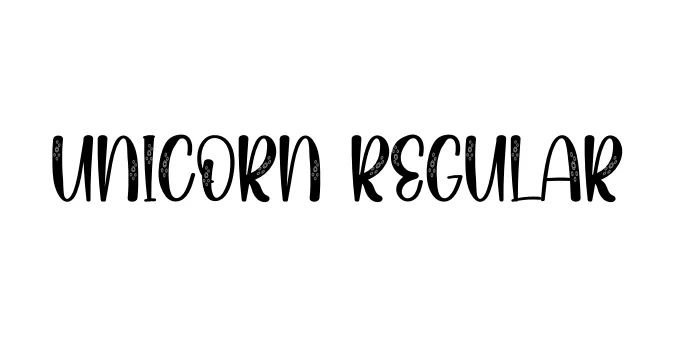
Unicorn Regular
Designed by Steve Jackaman
| Category | Display / Decorative |
| Designer | Steve Jackaman |
| Similar Fonts | Luminari, Harrington, Wizard |
Unicorn Regular is a whimsical and enchanting display typeface that captures a sense of wonder and magic through its artistic letterforms. Often used in fantasy-themed projects and imaginative storytelling, its characters are defined by fluid, organic curves and unique terminals that evoke a classic fairy-tale aesthetic and mystical charm.
Originally popularized for its expressive and decorative personality, this font has remained a staple for children's book titles and boutique brand identities. Its distinct personality ensures that any headline or logo designed with it carries an air of mystique, making it an excellent choice for projects that require a touch of elegance combined with a playful, legendary spirit.